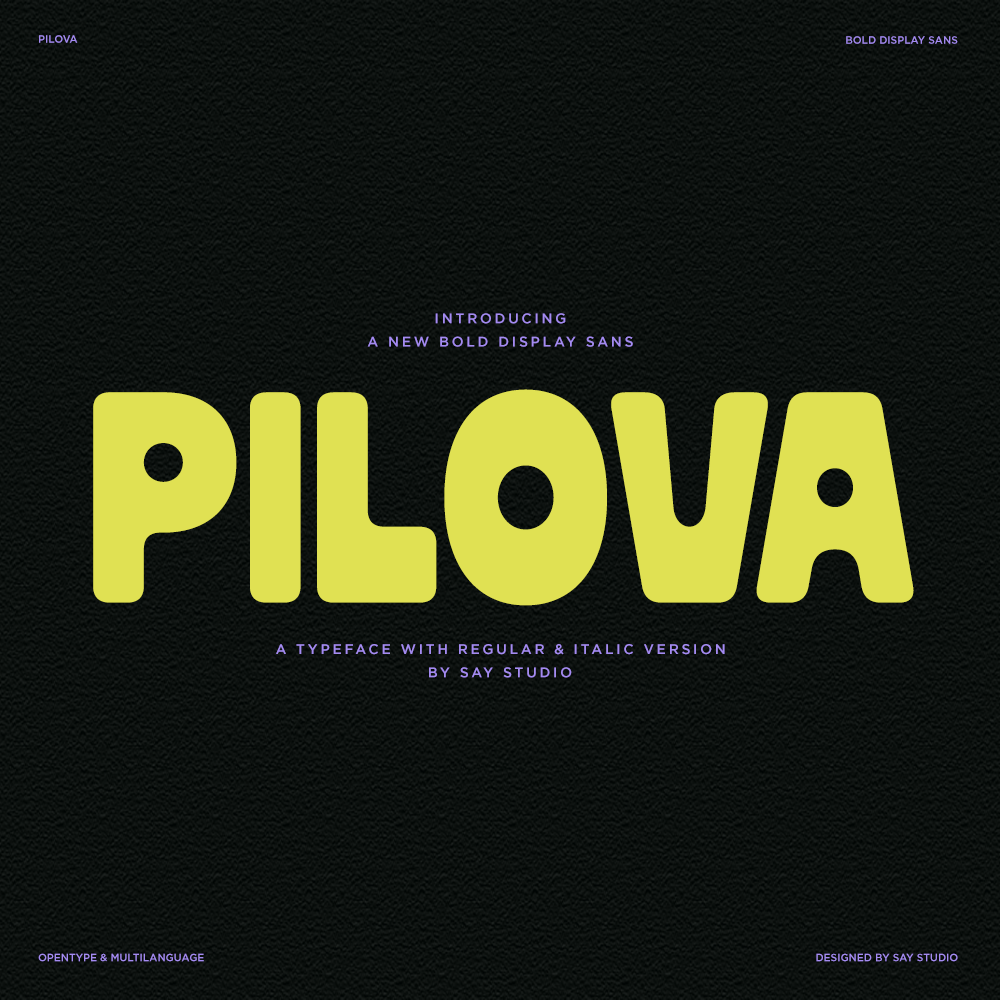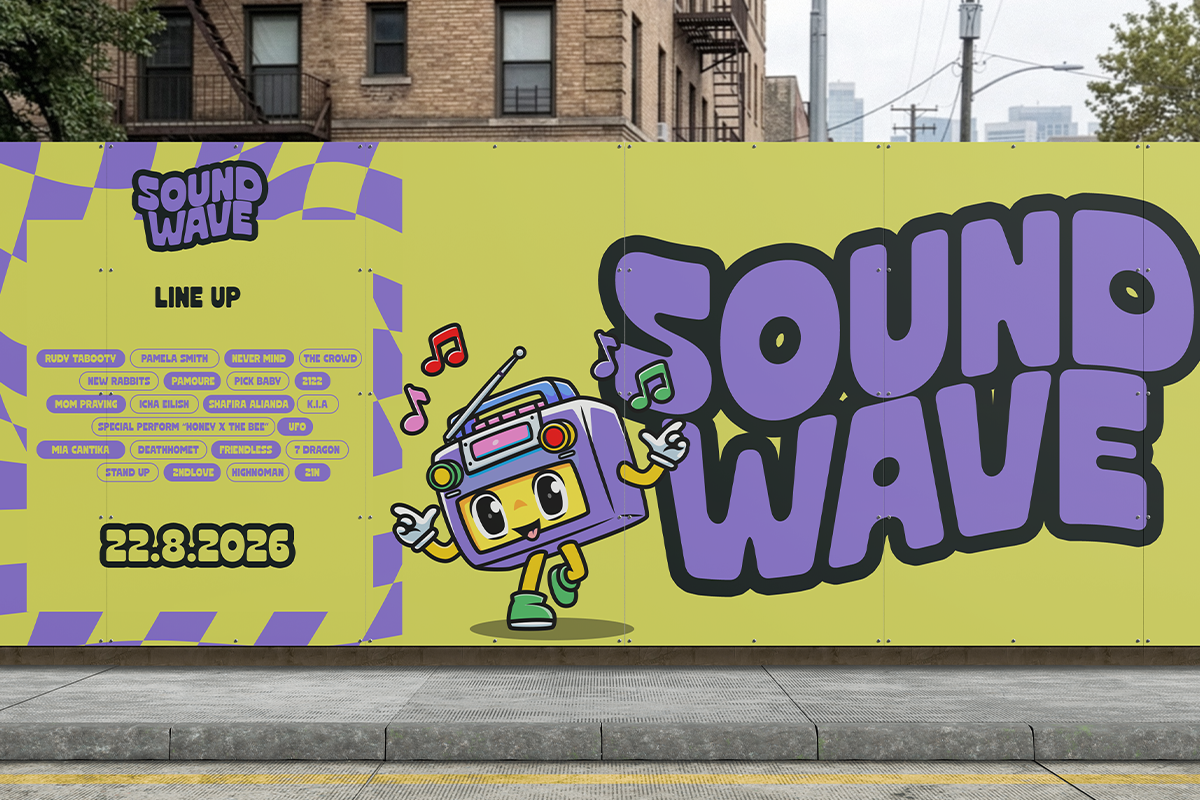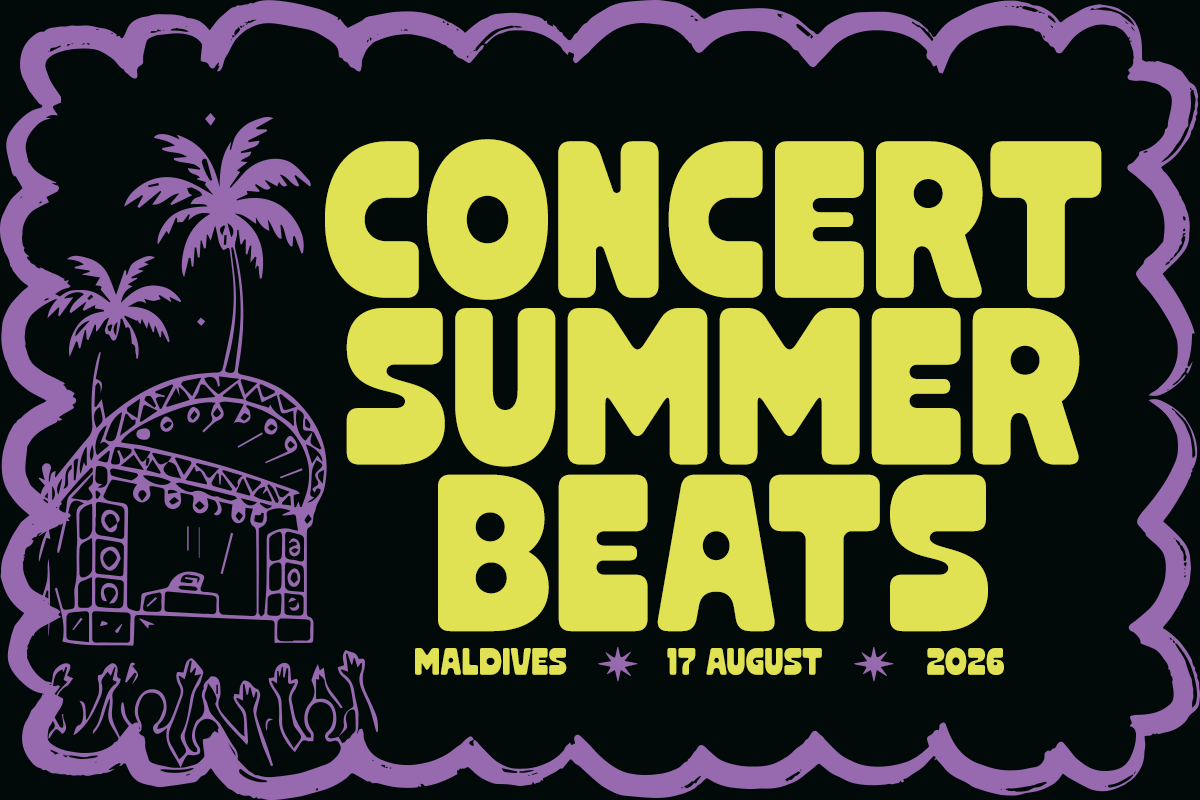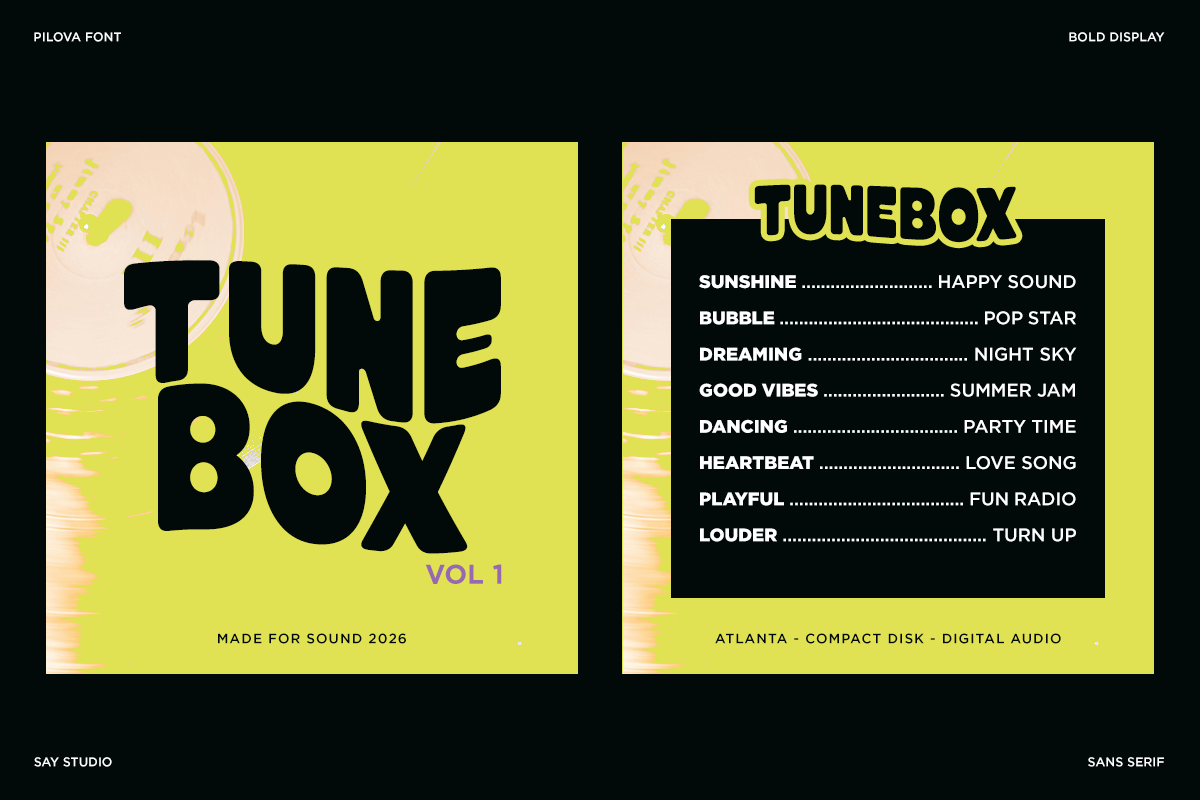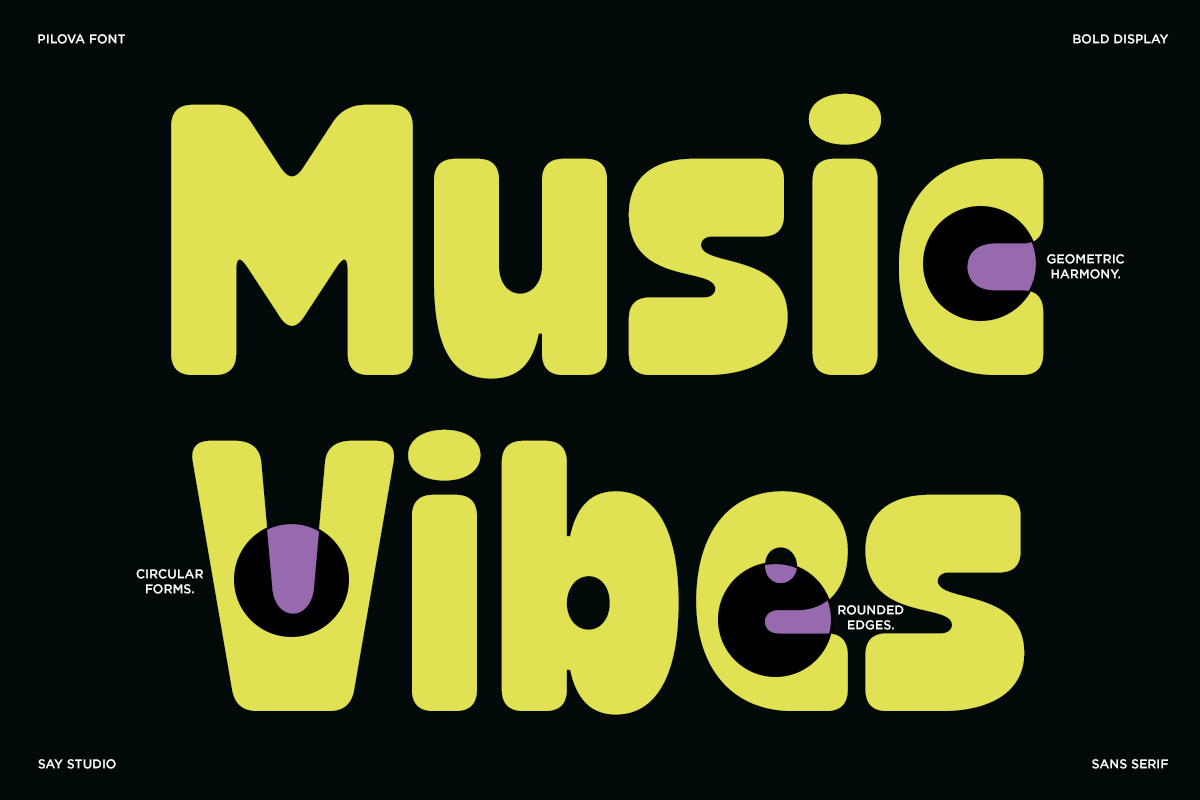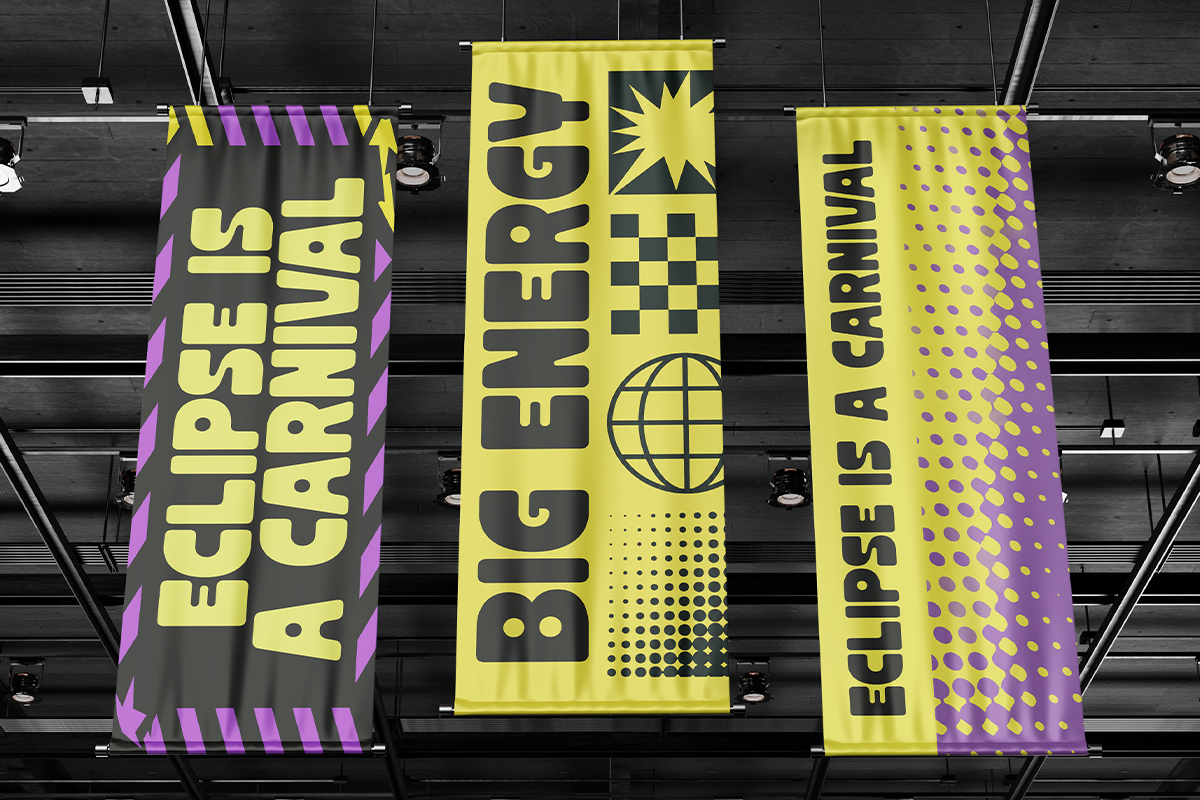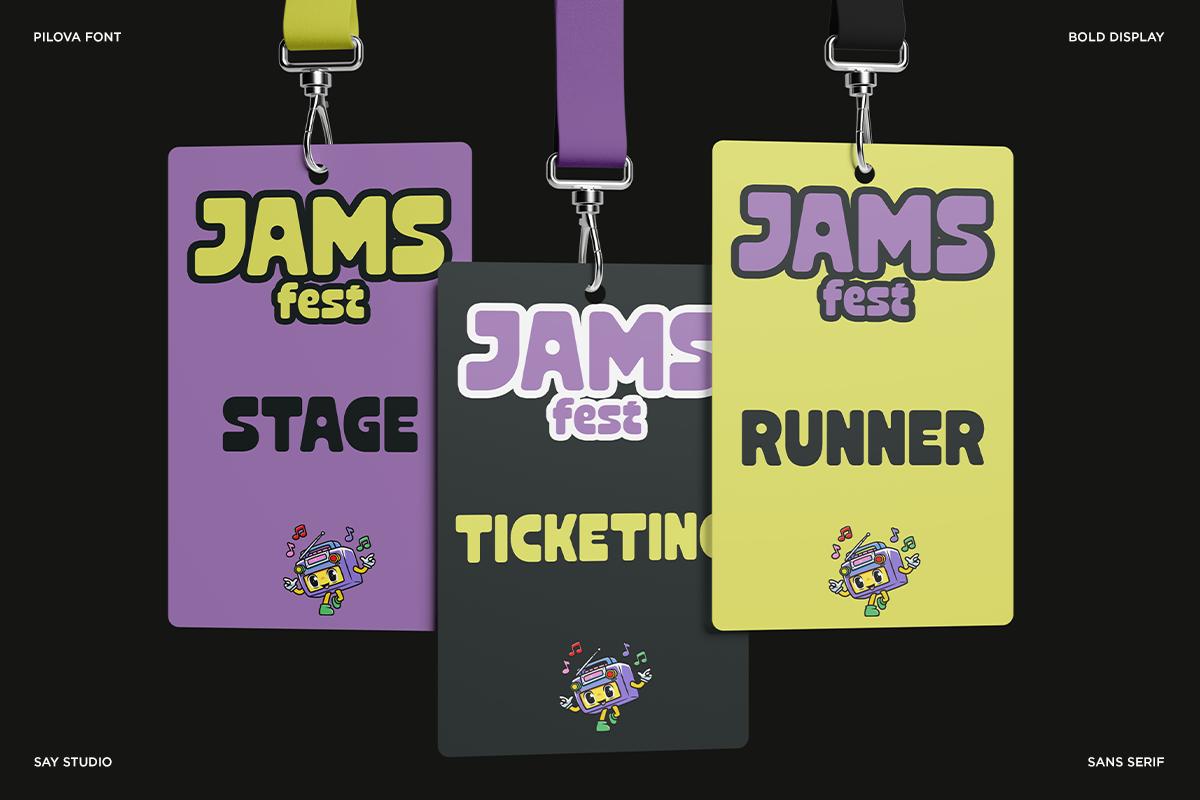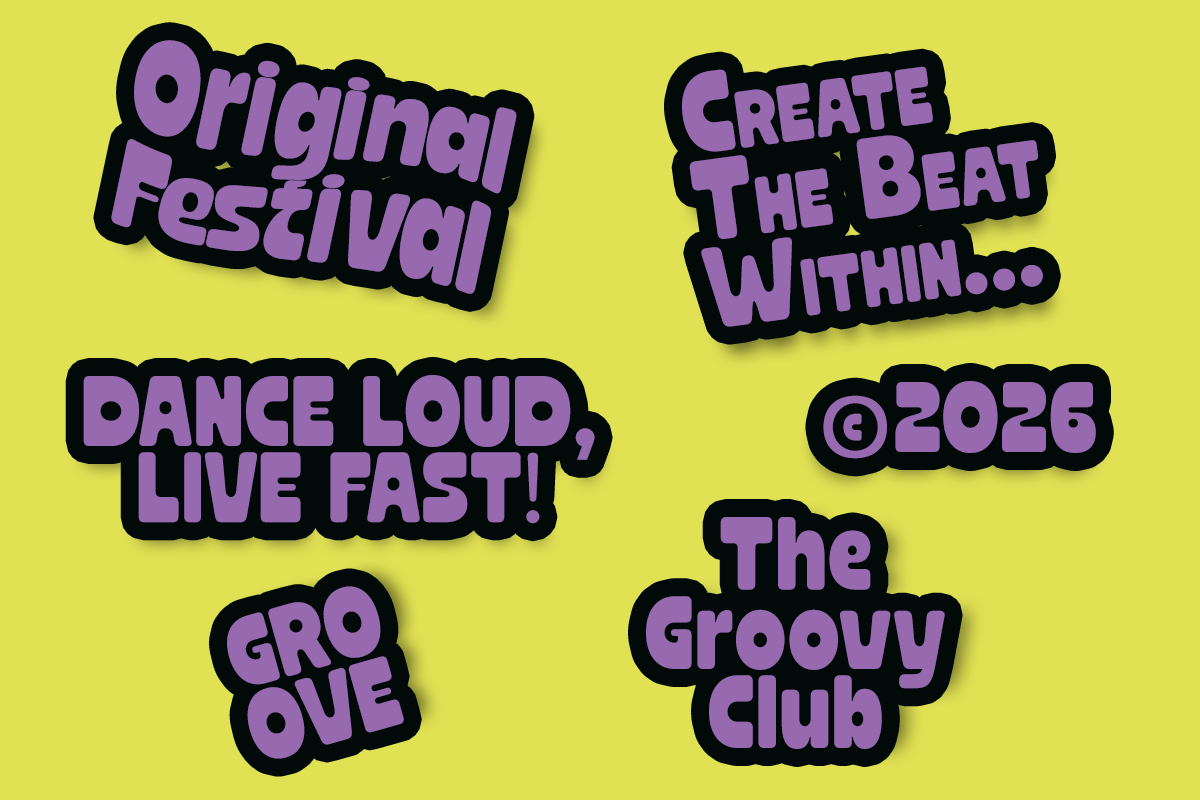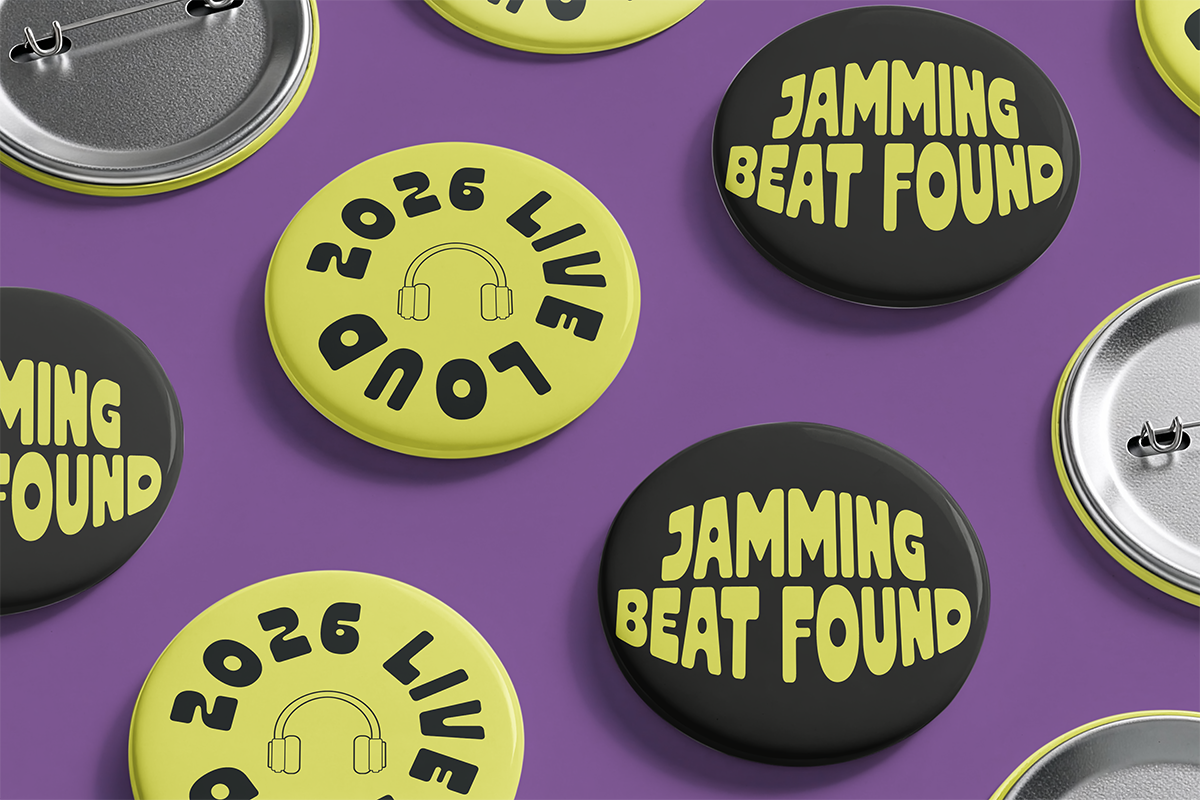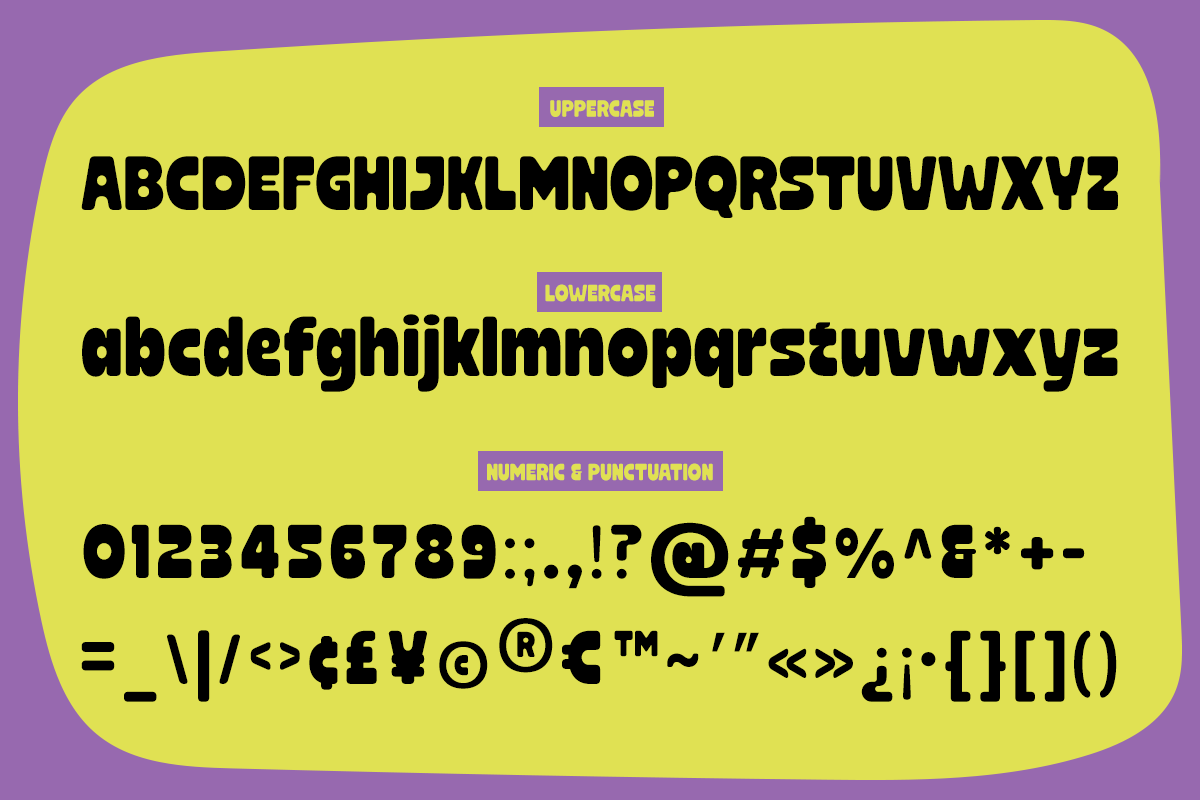
Pilova - Bold Groovy Sans Serif Display Font
Pilova is a bold groovy display font with chunky, rounded letterforms and a playful retro-inspired character. Designed to create strong visual impact, Pilova combines bold shapes with a fun and energetic style, making it perfect for expressive headlines and creative designs.
Perfect for posters, music events, festival graphics, branding, logos, apparel, packaging, album covers, advertising, social media, stickers, and merchandise. Pilova adds a bold, playful, and stylish touch to any creative project.
• Regular and Italic
• Uppercase and Lowercase
• Number, Symbol, and Punctuation
Pilova is a bold groovy sans serif display font featuring chunky, rounded letterforms with a retro-inspired style. It includes Regular and Italic styles, uppercase and lowercase characters, numbers, symbols, punctuation, and multilingual support, available in OTF, TTF, and WOFF formats.